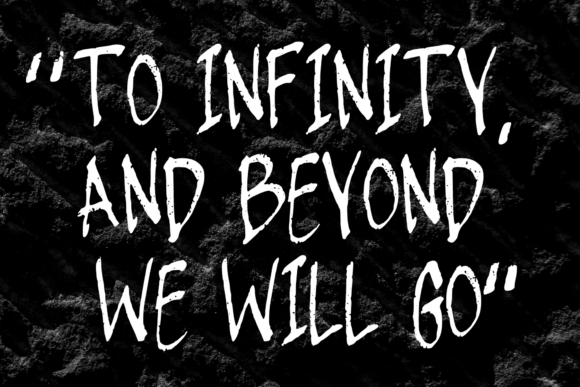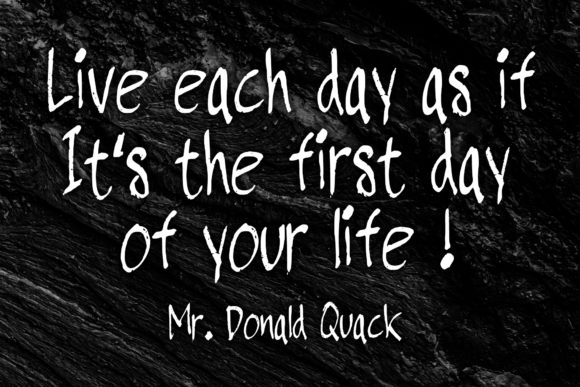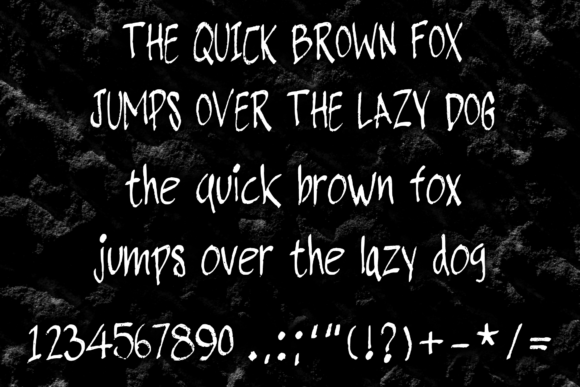
The Perfect Brushstroke for Your Next Masterpiece
Do you remember the thrill of creating something from scratch as a kid? Grabbing a piece of chalk and scrawling a tag on the pavement, watching it come to life as the colors blended and swirled together? That same feeling of freedom and creativity is what inspired the Chalk Street Tag Font, a quick and skinny handwritten font that brings the raw energy of graffiti-style tags to your design projects.
Whether you’re a seasoned designer or just starting out, the Chalk Street Tag Font is a valuable addition to your toolkit. Its versatility and edgy charm make it perfect for a wide range of projects, from stickers and t-shirt designs to logo designs and magazine covers. With this font, you’ll be able to add a super cool touch to your designs and take your creativity to the next level.
Chalk Street Tag Font Key Features
- Font Style: A distressed, hand-drawn tag font with a chalkboard-inspired aesthetic.
- Font Size: Supports a wide range of font sizes, from 8pt to 120pt, making it suitable for various design applications.
- Resolution: Designed to be legible at resolutions as low as 72 dpi, making it ideal for digital applications.
- Unique Characteristics: Features a unique, hand-drawn feel with subtle imperfections and texture, giving it a charming, vintage look.
Chalk Street Tag Font Review
Overall, I think the Chalk Street Tag font has some great qualities, but it also has a few limitations that hold it back. Let’s dive into the good first.
- The font has a fun, playful vibe that would be perfect for a children’s book or a lighthearted advertising campaign.
- The uppercase letters are particularly well-designed, with a nice balance of width and height.
- The font includes a wide range of characters, including punctuation and symbols.
- The font can feel a bit too rough and uneven at larger sizes, which may not be suitable for all applications.
- The lowercase letters, while cute, can be a bit difficult to read at smaller sizes.
- The font lacks a clear italic or oblique style, which may limit its use in certain contexts.
In terms of overall impression, I think the Chalk Street Tag font is a solid choice for the right project. While it may not be perfect for every application, it has a unique charm that can add some personality to a design. With a bit of careful consideration, this font could be a great fit for a variety of projects.
Tip: Use the font in combination with a distressed or worn effect for a vintage look.
Tip: Experiment with different font sizes and styles to create a unique look.
Tip: Use the font to create a playful and informal tone in your presentation or document.
The Chalk Street Tag Font is ideal for:
- Creating a vintage or distressed look.
- Designing posters, flyers, or social media graphics.
- Adding a playful touch to presentations or documents.
Alternatives to Chalk Street Tag Font
Playfair Display is an elegant, high-end serif font perfect for luxury brands, high-end fashion, and special events. It features intricate details and refined lines that evoke a sense of sophistication.
Comparison to Chalk Street Tag Font: While Chalk Street Tag Font has a more rustic, handwritten feel, Playfair Display is a polished, elegant font. Playfair Display is ideal for projects that require a touch of luxury and sophistication, whereas Chalk Street Tag Font is better suited for casual, creative projects.
Great Vibes is a modern, cursive font with a relaxed, laid-back feel. It’s perfect for projects that require a touch of whimsy and playfulness, such as travel, food, or lifestyle brands.
Comparison to Chalk Street Tag Font: While both fonts have a handwritten feel, Great Vibes is more modern and cursive, whereas Chalk Street Tag Font is more rustic and distressed. Great Vibes is ideal for projects that require a fun, carefree vibe, whereas Chalk Street Tag Font is better suited for projects that require a more rugged, outdoorsy feel.
Pacifico is a beautiful, elegant font with a relaxed, beachy feel. It’s perfect for projects that require a touch of calmness and serenity, such as wellness, travel, or lifestyle brands.
Comparison to Chalk Street Tag Font: While both fonts have a relaxed, handwritten feel, Pacifico is more elegant and refined, whereas Chalk Street Tag Font is more rustic and distressed. Pacifico is ideal for projects that require a peaceful, calming vibe, whereas Chalk Street Tag Font is better suited for projects that require a more rugged, outdoorsy feel